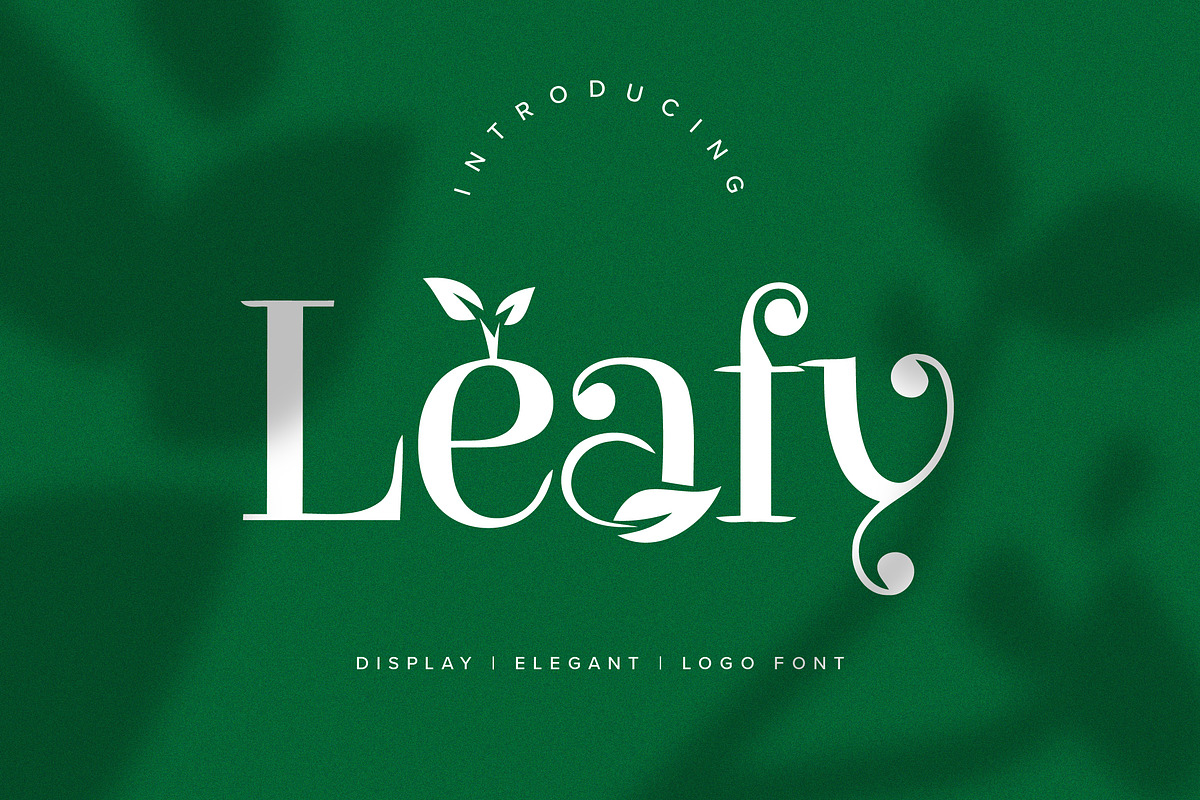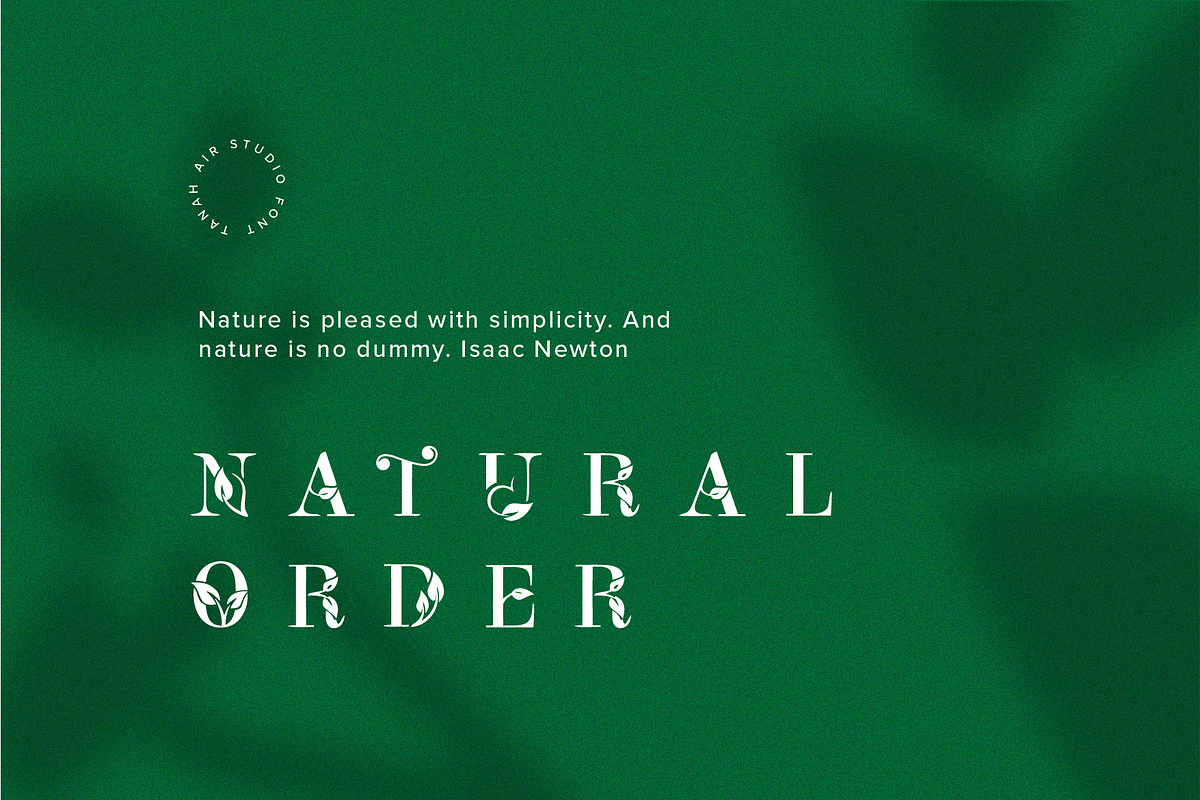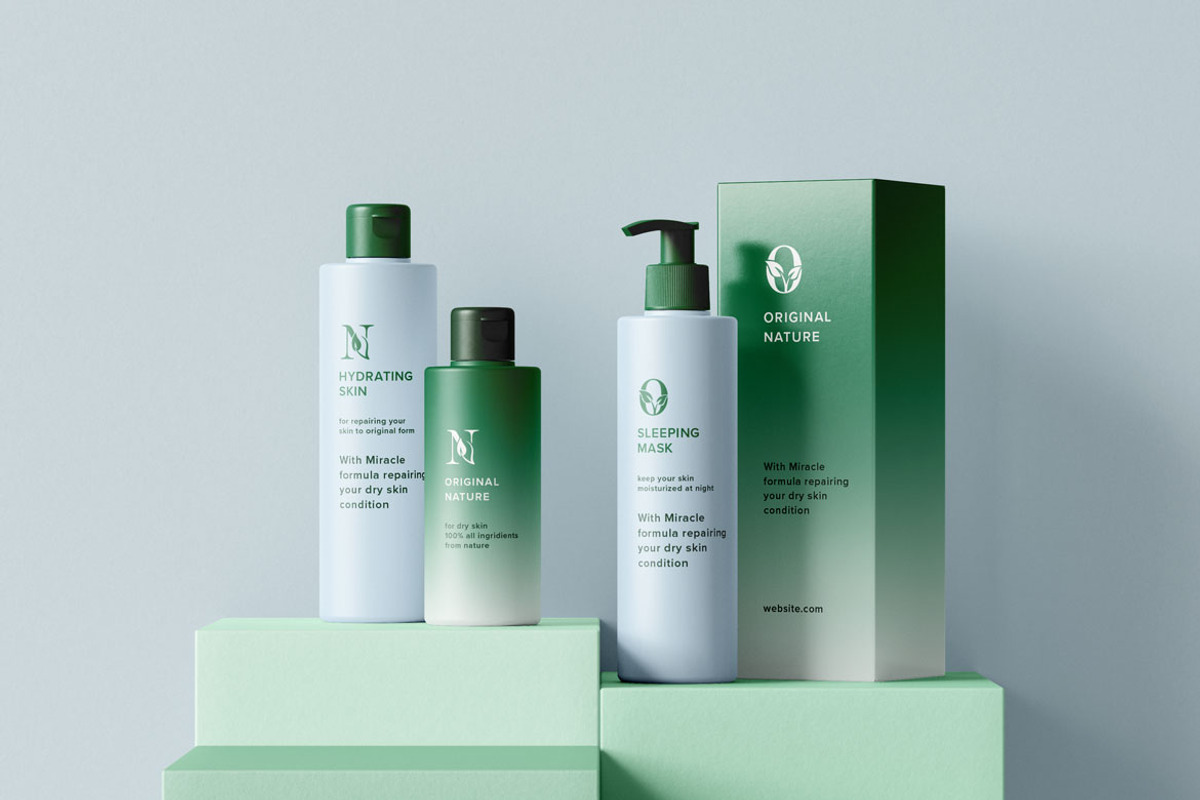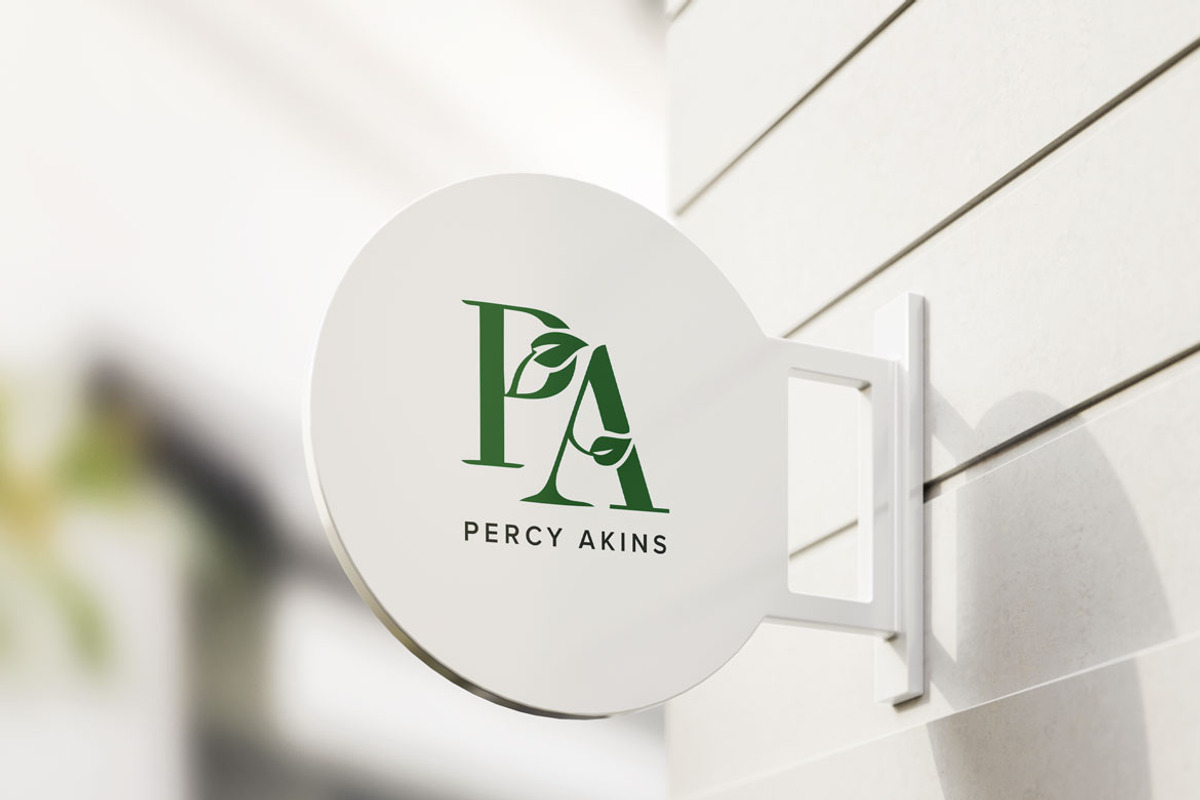
Leafy Logo Font
Leafy is a logo display font created with environmental theme in mind. It features a unique style and will add a friendly feel to your upcoming projects. Get inspired by its authentic feel and use it to create beautiful poster, product packaging or logo and many more!
Leafy Logo Font by Kreativ Space fits naturally into Branding, posters, packaging, typography.